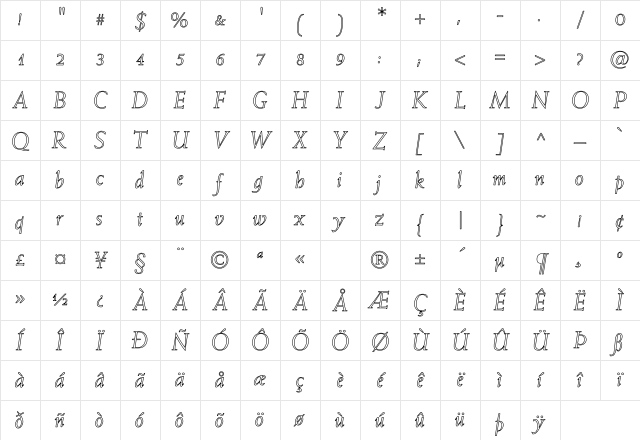
Complete Weiss-Italic Hollow Regular glyph index. Displaying only characters natively supported by Weiss-Italic Hollow Regular font.
Weiss-Italic Hollow is a composed and adaptable typeface that performs quietly and consistently across a wide range of design contexts. The slanted form adds forward momentum and visual energy.
Pro Tip: Use Weiss-Italic Hollow for emphasis, pull quotes, and subheadings where its slanted energy can add rhythm to the layout.